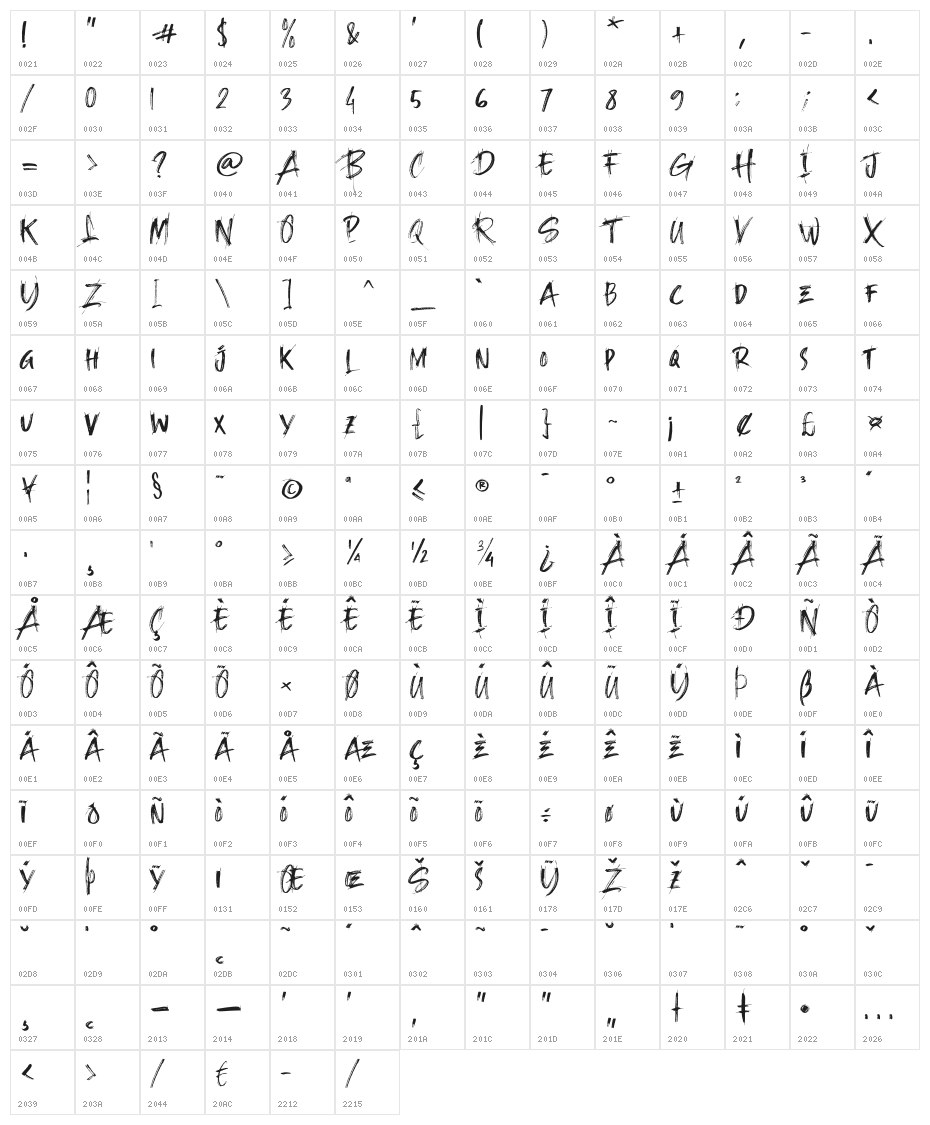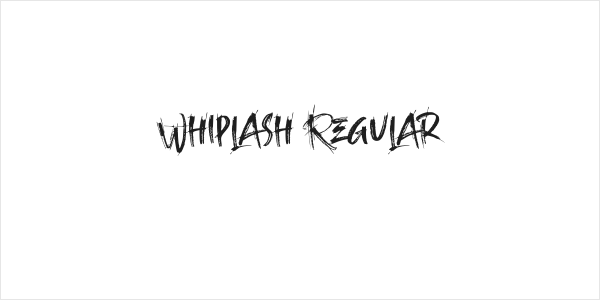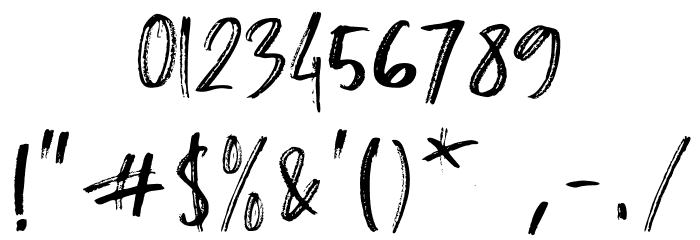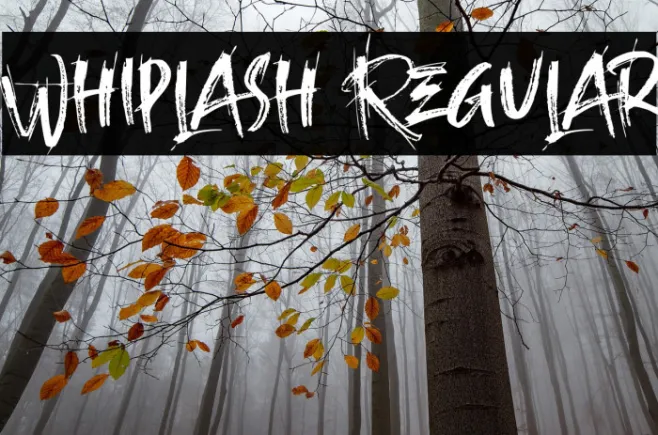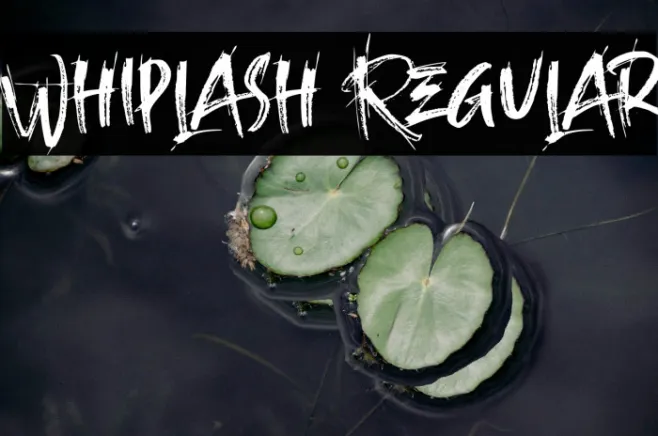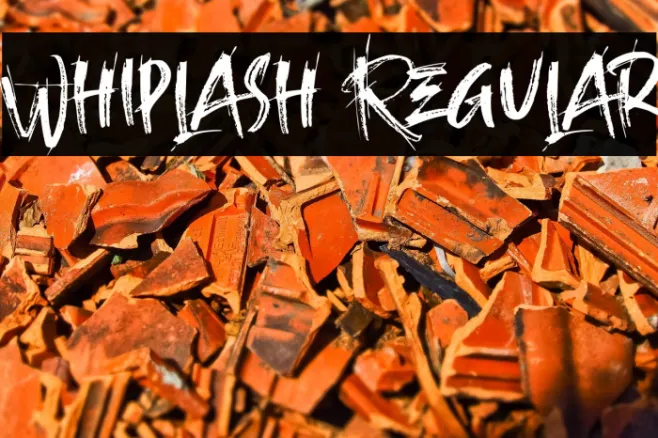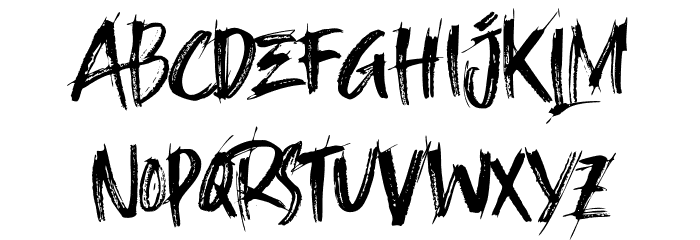
Whiplash Regular Font
Whiplash Regular Description
This font features a dynamic and energetic style, characterized by its brush-like strokes and irregular edges. The letters exhibit a sense of movement and spontaneity, with varying thicknesses that create a bold and expressive appearance. The uppercase and lowercase letters maintain a consistent aesthetic, while the numerals and special characters integrate seamlessly with the overall design. The font's raw and edgy look makes it suitable for projects that require a strong visual impact.
| Overall Style | Modern, Artistic |
| Proposed Projects | Ideal for music album covers, event posters, graffiti art, and branding that requires a bold and edgy statement. |